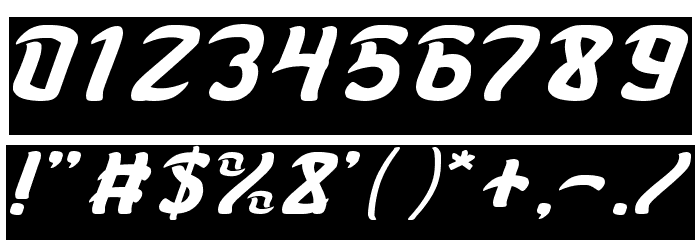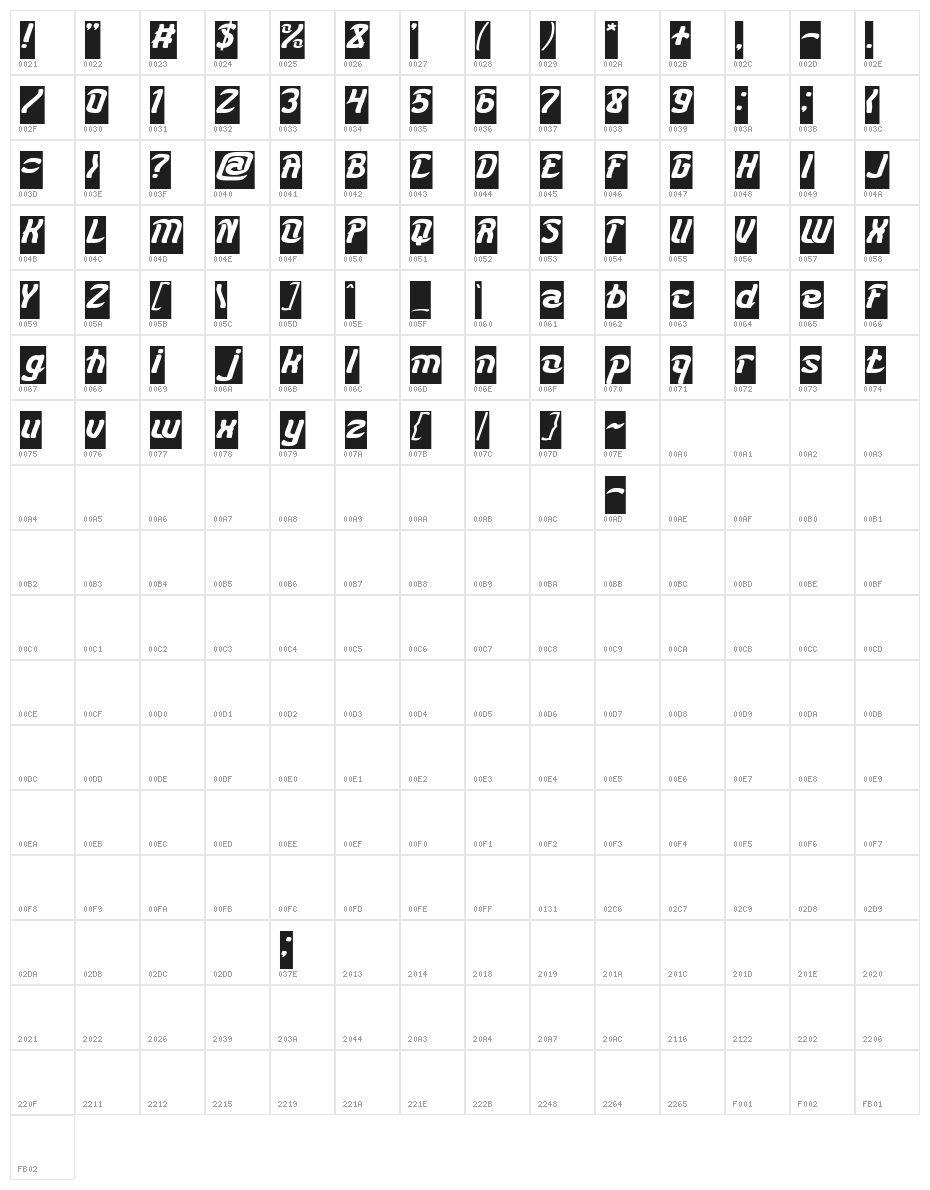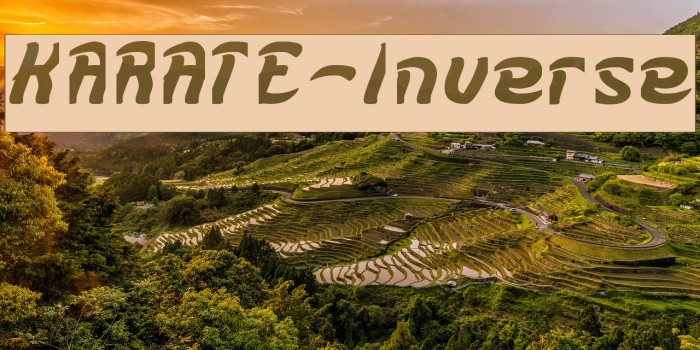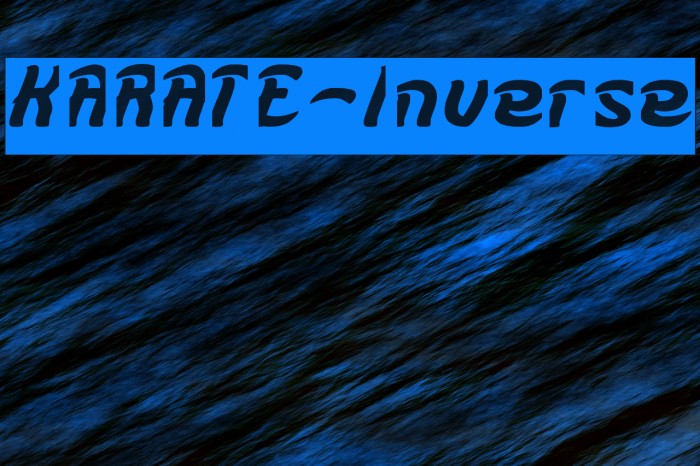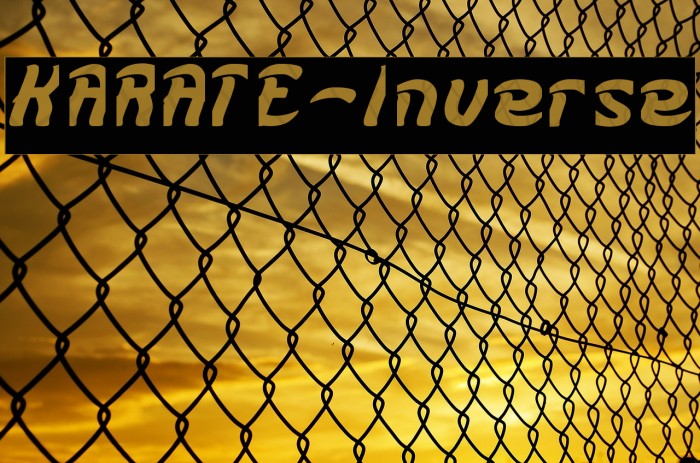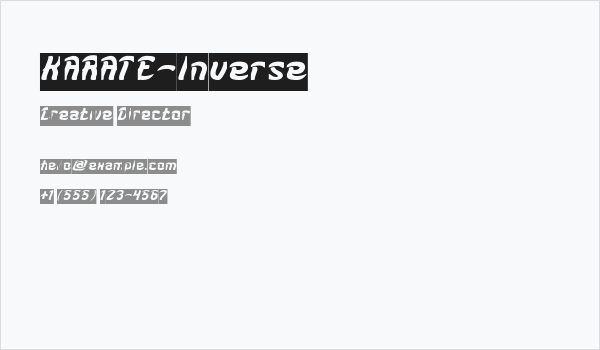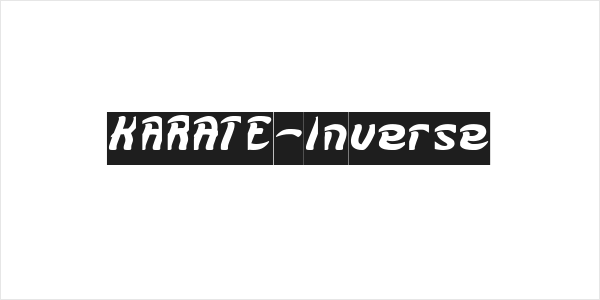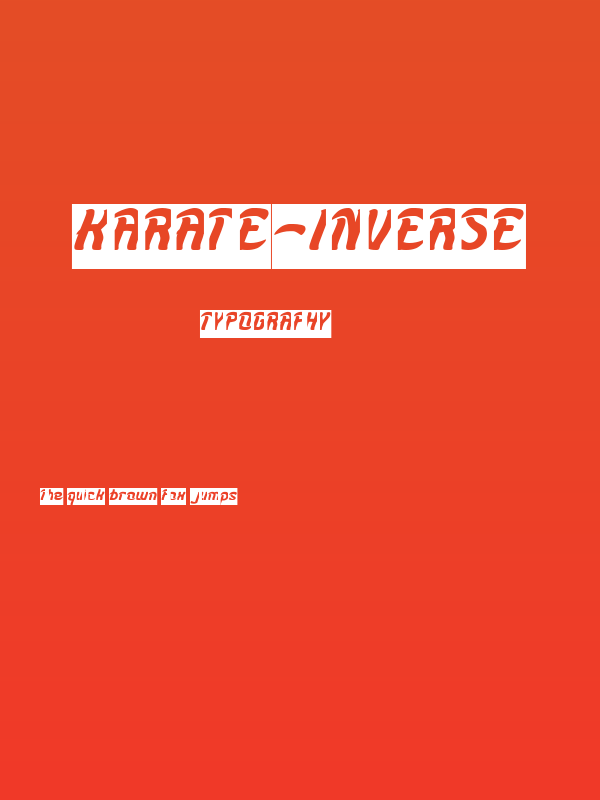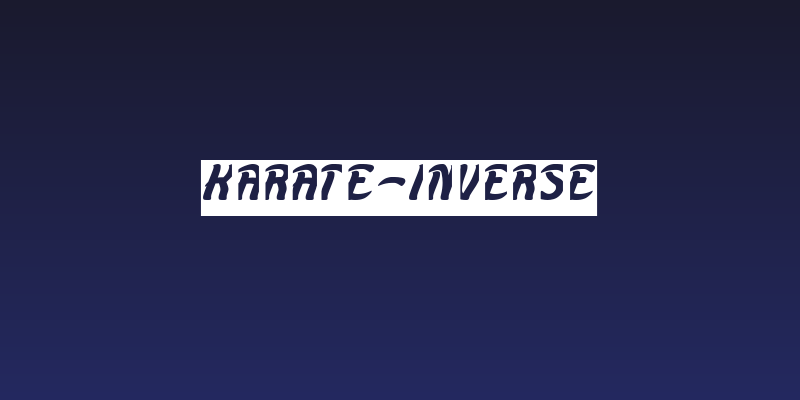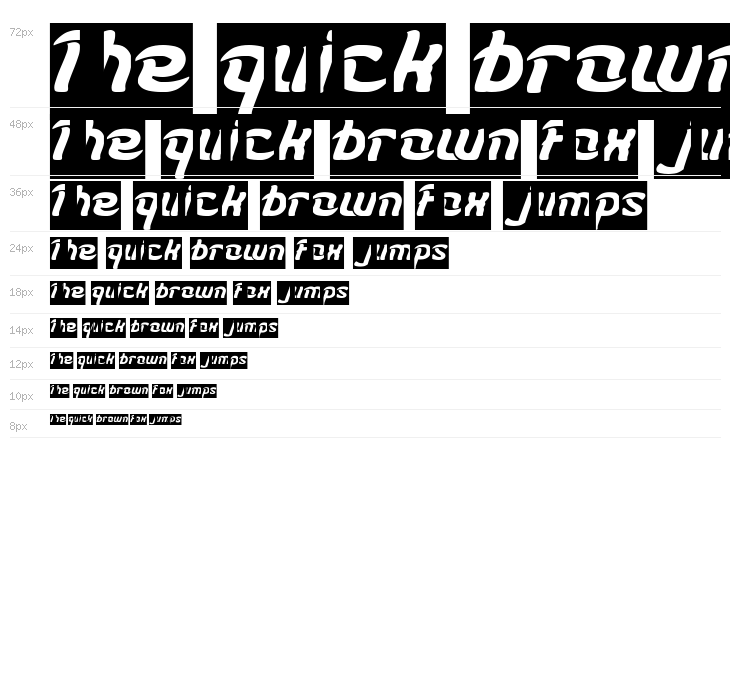
KARATE-Inverse Font
KARATE-Inverse Description
This font features a bold and dynamic style with a strong presence. The characters are designed with a brush-like appearance, giving them a fluid and energetic feel. The strokes are thick and consistent, creating a sense of movement and vitality. The uppercase and lowercase letters maintain a cohesive look, while the numerals and special characters complement the overall design. The font's unique style makes it stand out, suitable for projects that require a bold and eye-catching typeface.
| Overall Style | Modern, Energetic |
| Proposed Projects | Ideal for sports branding, martial arts event posters, dynamic logo designs, and energetic advertising campaigns. |